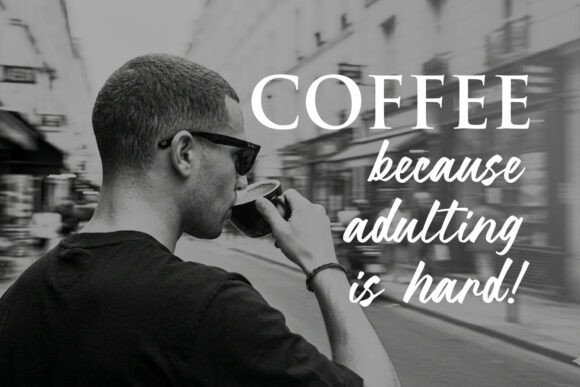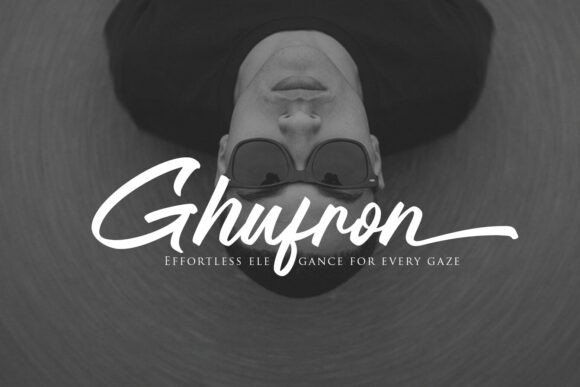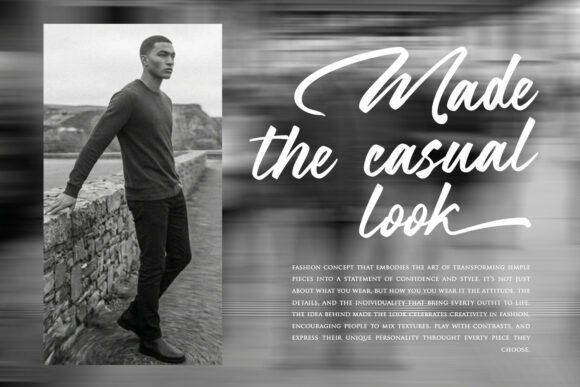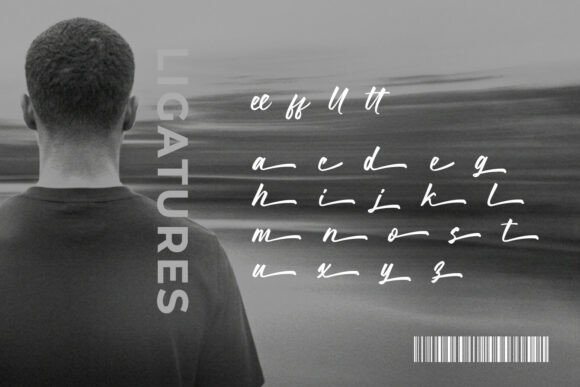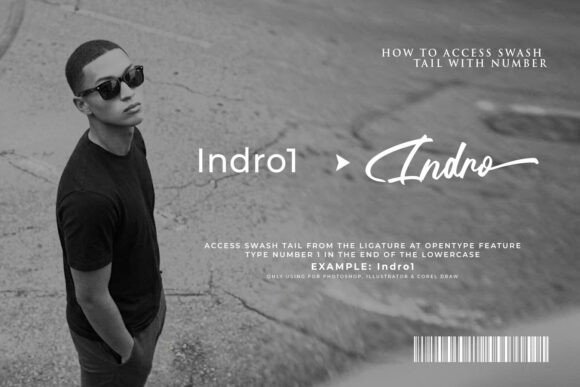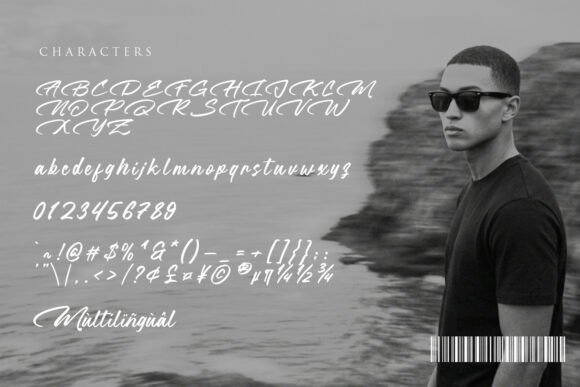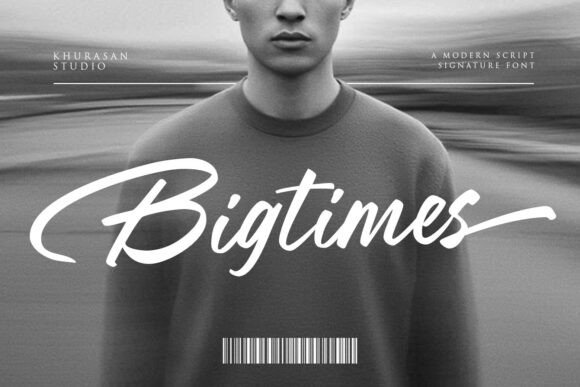
Bigtimes Font: Elevate Your Designs with Authentic Handwritten Charm
In the world of typography, few fonts manage to capture the essence of real hand-lettering as effortlessly as Bigtimes. This script handwriting font is designed to bring a touch of personality and warmth to your designs, making it an ideal choice for creatives and designers looking to add a human touch to their work. With its natural brush effect, smooth strokes, and expressive flair, Bigtimes is the perfect addition to any project that demands a stylish and premium feel.
The Beauty of Handwritten Typography
Bigtimes is more than just a font – it’s an experience. Every stroke feels alive, smooth, and full of personality, making it an excellent choice for designers who want to create a lasting impression. The font’s authentic handwritten charm is perfect for a wide range of applications, from logos and branding to product packaging, quotes, social media posts, wedding designs, and creative projects. With Bigtimes, you can add a personal and artistic touch to your work that instantly stands out from the crowd.
Key Features of Bigtimes Font
• Natural Brush Effect: Bigtimes boasts a natural brush effect that mimics the texture and feel of real hand-lettering, giving your designs a warm and organic look.
• Smooth and Expressive Strokes: The font’s smooth and expressive strokes make it perfect for creating flowing connections and dynamic text that feels human and memorable.
• Flowing Connections: Bigtimes’ flowing connections create a sense of movement and emotion, making your text feel more engaging and dynamic.
• Dynamic Brush Texture: The font’s dynamic brush texture adds a layer of depth and character to your designs, making them feel more premium and stylish.
Bigtimes is a versatile font that can be used in a variety of contexts, including:
• Logos and Branding: Create a lasting impression with a custom logo that showcases your brand’s personality and style.
• Product Packaging: Add a touch of elegance and sophistication to your product packaging with Bigtimes’ premium feel.
• Quotes and Social Media Posts: Make your quotes and social media posts stand out with Bigtimes’ unique and expressive typography.
• Wedding Designs: Create beautiful and memorable wedding designs, including invitations, programs, and signage.
• Creative Projects: Add a personal and artistic touch to your creative projects, including art, illustrations, and graphic designs.
Why Choose Bigtimes Font?
With so many fonts available, why choose Bigtimes? Here are just a few reasons why Bigtimes stands out from the crowd:
• Unique and Expressive: Bigtimes’ natural brush effect and smooth strokes make it a unique and expressive font that adds a personal touch to your designs.
• High-Quality Typography: The font is designed to deliver high-quality typography that looks great in any context, from print to digital.
In conclusion, Bigtimes is a script handwriting font that offers a unique and expressive way to add a personal touch to your designs. With its natural brush effect, smooth strokes, and flowing connections, Bigtimes is perfect for designers and crafters looking to create high-quality typography that stands out from the crowd. Whether you’re working on a logo, branding project, product packaging, or creative project, Bigtimes is an excellent choice that delivers a premium feel and a lasting impression.